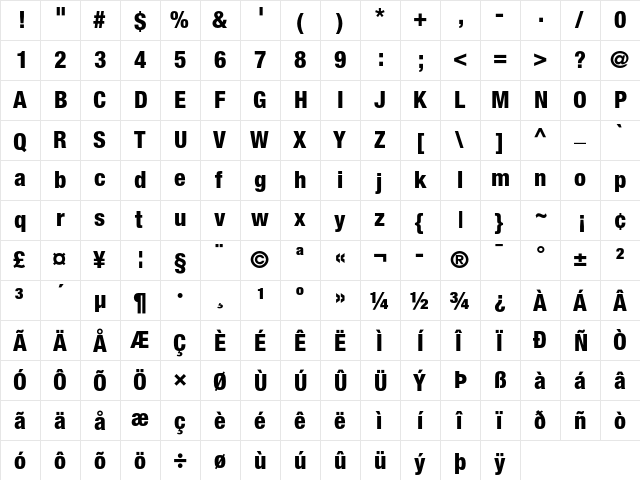
Helvetica Neue 87 Heavy Condensed
Design Context for Helvetica Neue Typeface
Helvetica Neue offers clean, dependable letterforms without strong stylistic allegiance, making it a practical choice for designers who need flexibility. Its narrow stance lets it pack a punch even in space-constrained designs.
Pro Tip: Pair Helvetica Neue with a font of contrasting weight or personality to build a more expressive typographic hierarchy.